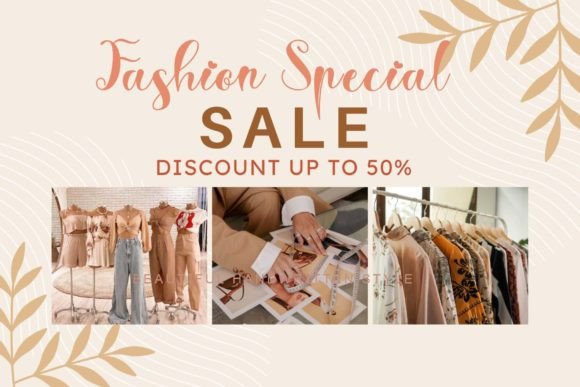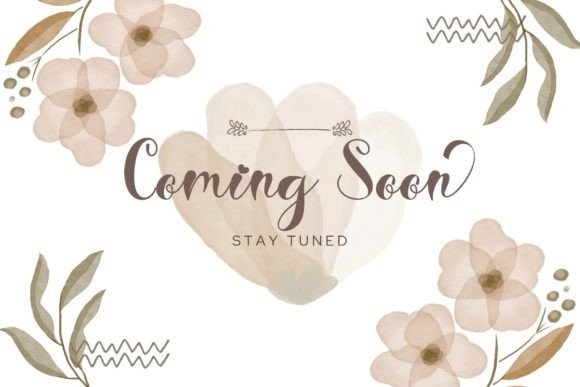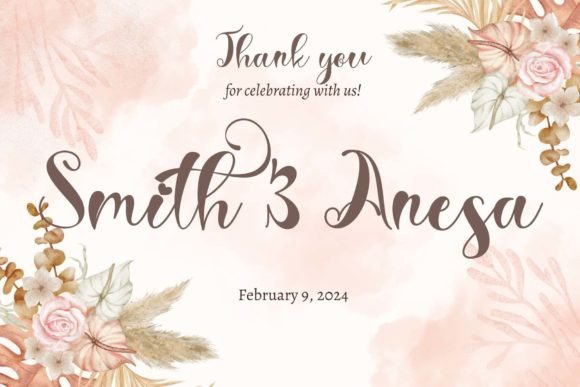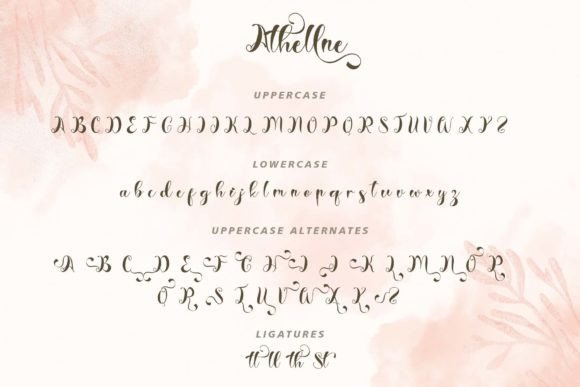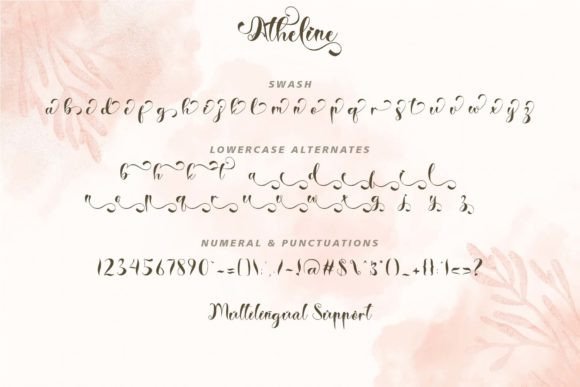
Discovering the Perfect Font for Your Next Creative Project
Have you ever found yourself stuck in front of your computer screen, searching for the perfect font to elevate your design? I know I have. There’s nothing quite like the thrill of stumbling upon a font that speaks to you, and today I want to introduce you to a beautiful handwritten font that’s sure to capture your heart: Atheline Font.
Atheline Font is a stunning, elegant font that’s packed with features, including uppercase, lowercase, numerals, punctuation, and multilingual support. Whether you’re planning a wedding, creating a photography album, or designing a brand, Atheline Font is the perfect choice. Its versatility and sophistication make it a valuable asset for designers, allowing you to create unique and captivating designs with ease.
With its PUA encoding, accessing the amazing glyphs and ligatures of Atheline Font is a breeze, giving you the freedom to get creative and experiment with different styles and effects.
- Unique Characteristics: Features a distinctive, elegant script design with a mix of cursive and handwritten elements
Atheline Font Review
As a designer, I recently had the opportunity to work with the Atheline Font, and I must say it’s a unique and interesting typeface. Here’s my honest review:
✨ The Atheline Font has a distinctive, hand-drawn feel that can add a touch of elegance to any design. It’s perfect for creating a whimsical or vintage vibe.
- ✨ Unique letterforms that add character to text
- ✨ Versatile – works well for headings and body copy
- ✨ Supports a wide range of languages
⚠️ While the Atheline Font has its strengths, there are a few areas where it falls short:
- ⚠️ Limited font sizes – may not be suitable for large or small text
- ⚠️ May not be the best choice for modern or minimalist designs
- ⚠️ Some characters may not be easily readable in certain contexts
Overall, I think the Atheline Font is a solid choice for designers looking to add a touch of personality to their work. While it may not be suitable for every project, it’s a great option for those seeking a unique and distinctive typeface.
Tips for Getting the Most Out of Atheline Font
Use Atheline Font to add a touch of elegance and sophistication to your designs. Pair it with bold fonts for contrast and emphasis. Experiment with different font sizes and colors to create visually appealing combinations.
Atheline Font is perfect for creating invitations, wedding stationery, and other formal event materials. It’s also great for designing logos, business cards, and other branding materials where a touch of sophistication is needed.